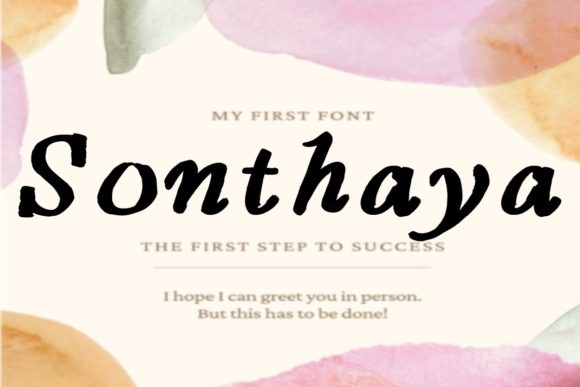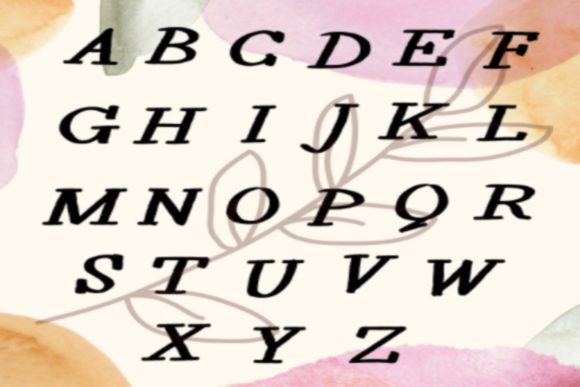
About Sonthaya Font
“Sonthaya” is a delightful and whimsical script font that brings a playful and charming touch to any design. With its delicate yet visually impactful letterforms, this font instantly grabs attention and adds a touch of fun to your creations.
The simplicity of “Sonthaya” is its strength, as it allows the font to shine in a variety of design projects. Whether you’re creating logos, packaging, invitations, social media graphics, or any other visual content, this font will make your designs stand out from the crowd.
The playful nature of “Sonthaya” is reflected in its unique letterforms, which feature subtle curves and dynamic strokes. This gives the font a sense of movement and energy, capturing the eye of the viewer and adding a joyful vibe to your design.
One of the great things about “Sonthaya” is its versatility. It can be used for both formal and informal designs, depending on how you choose to incorporate it into your projects. Its playful and delicate nature makes it ideal for children’s products, whimsical branding, and designs that aim to evoke a sense of joy and lightheartedness.
Whether you’re designing for print or digital media, “Sonthaya” will bring a fresh and captivating look to your work. Its strong visual effect will instantly make your creations more appealing and memorable.
Embrace the charm and playfulness of “Sonthaya” and let it bring a touch of delight to your design projects.